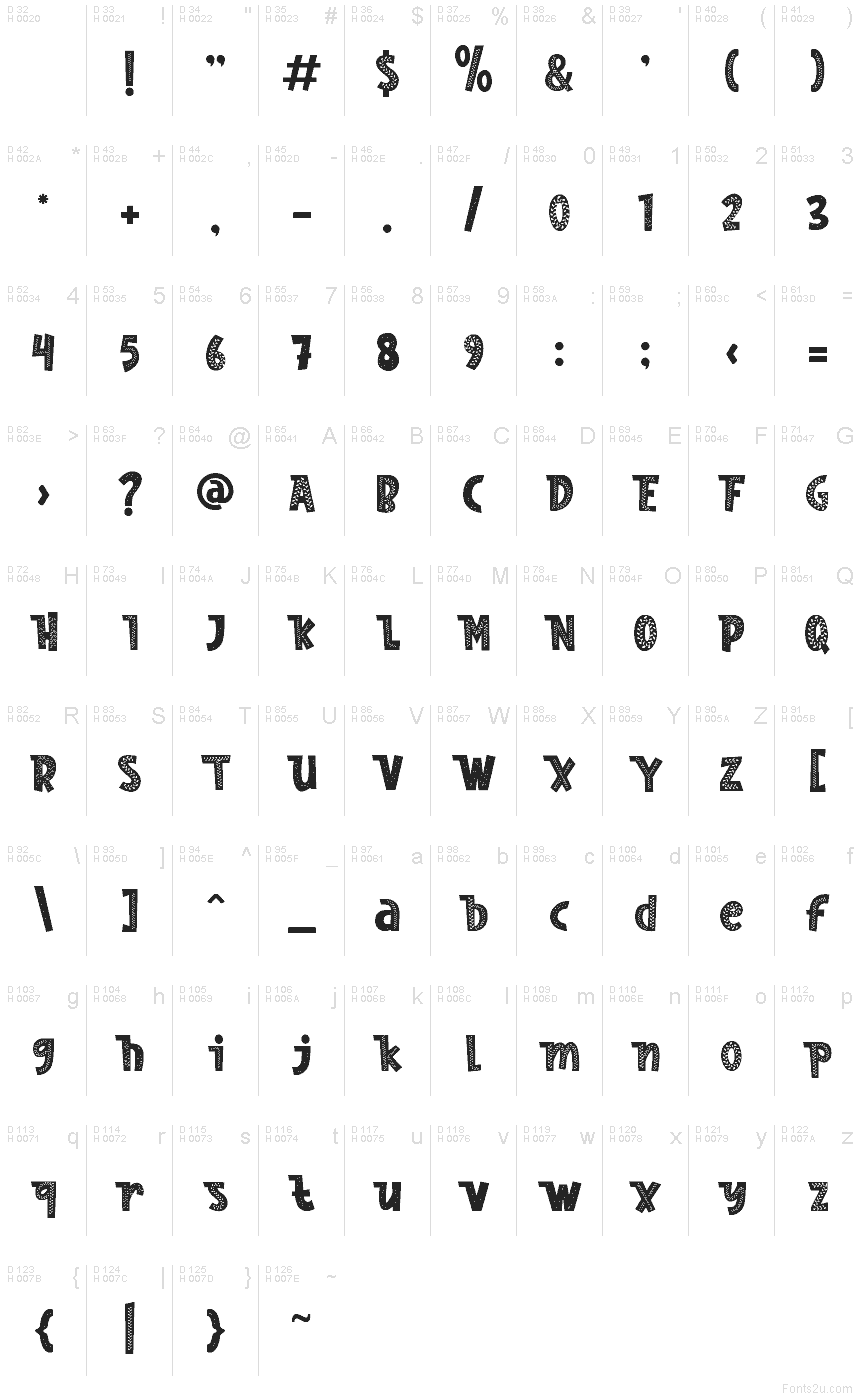
Nordic Whimsy Three
Nordic Whimsy Three font by PutraCetol Studio is a decorative bold display font inspired by retro designs with a folk art influence. This artistic masterpiece delivers an ornamental feel with intricate patterns and whimsical elements. The stylistic strokes intrigue admirers to indulge their visions through this free display font.
Incorporate Nordic Whimsy Three into greeting cards, book covers, and children’s books for an artistic flair. It also works well for creative branding of artisanal products, websites, and product packaging in addition to headlines in magazines and posters.